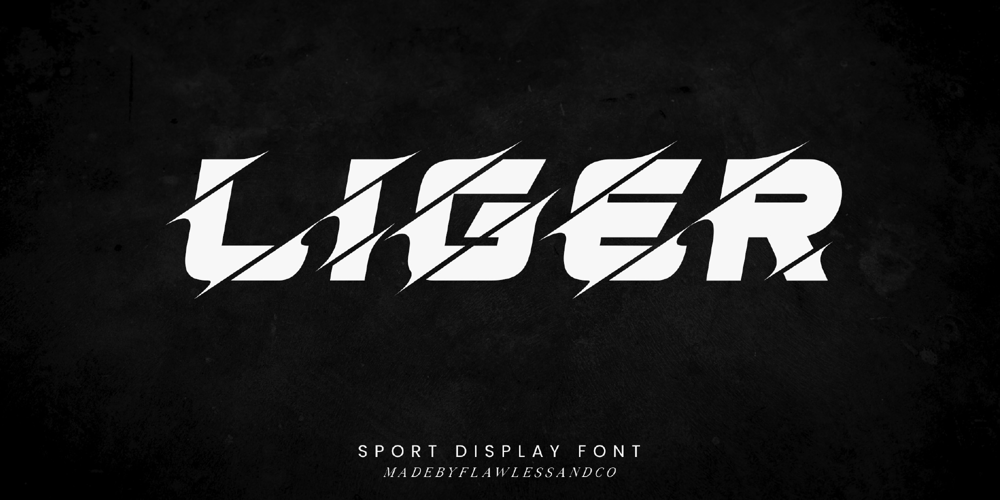
Liger Font Family was designed by Achmad Yani and published by Flawlessandco. Liger contains 1 styles and family package options. Introducing “Liger” – a dynamic and captivating sport display font designed to make a bold statement. Inspired by the power and agility of the legendary creature it’s named after, Liger brings a perfect blend of strength and style to your creative projects.There’s some connected letters and some alternates that suitable for any graphic designs such as branding materials, t-shirt, print, business cards, logo, poster, t-shirt, photography, quotes .etcThis font support for some multilingual. Also contains uppercase A-Z and lowercase a-z, alternate character, numbers 0-9, and some punctuation.If you need help, just write me! Thanks so much for checking out my shop!